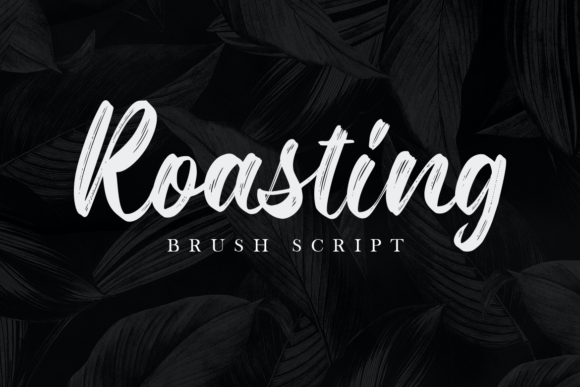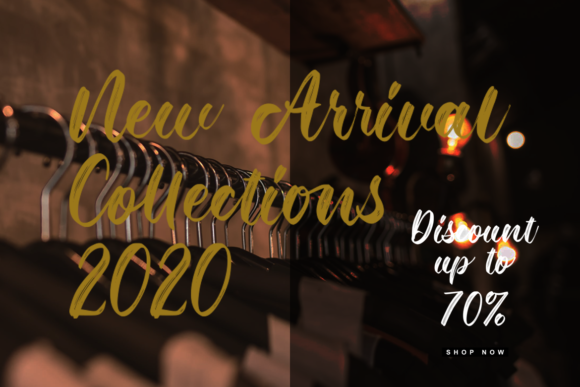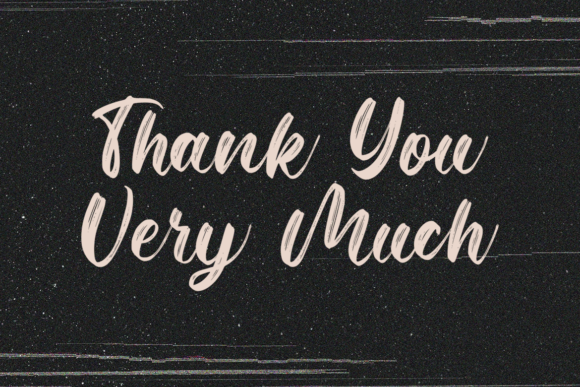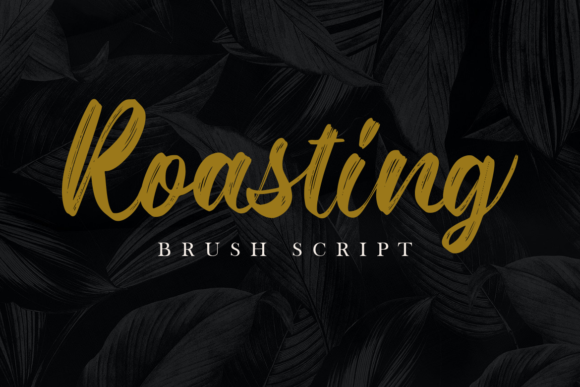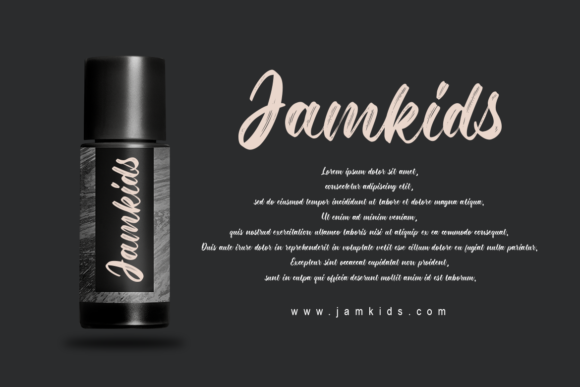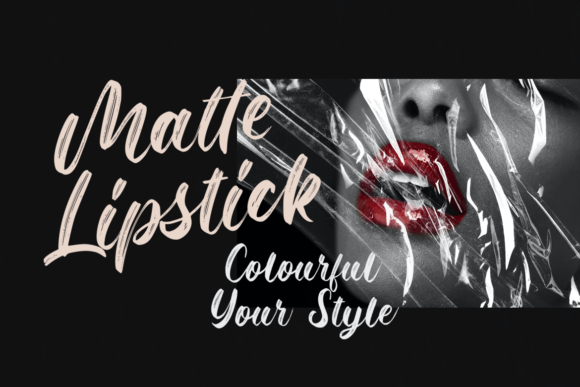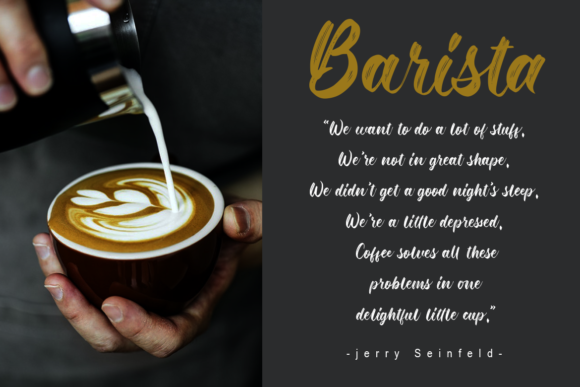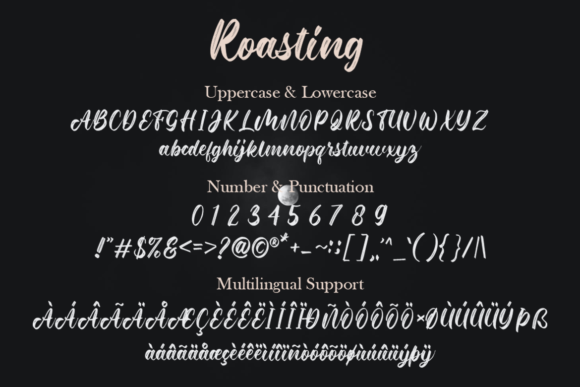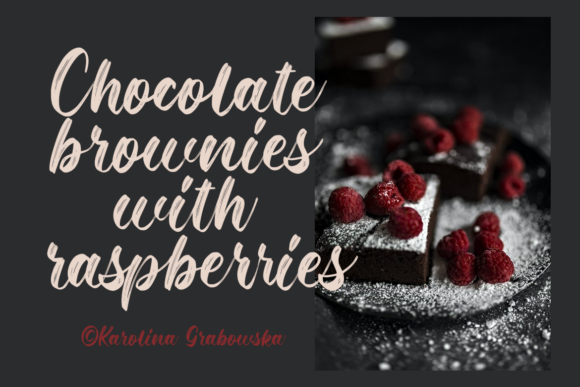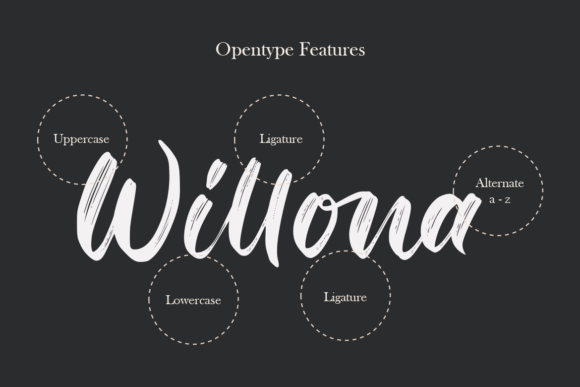
Roasting Font
About Roasting Font
Roasting is a sweet and brushed handwritten font. It can be used for various purposes such as logos, wedding invitations, headings, t-shirts, letterhead, signage, labels, news, posters, badges and so much more.